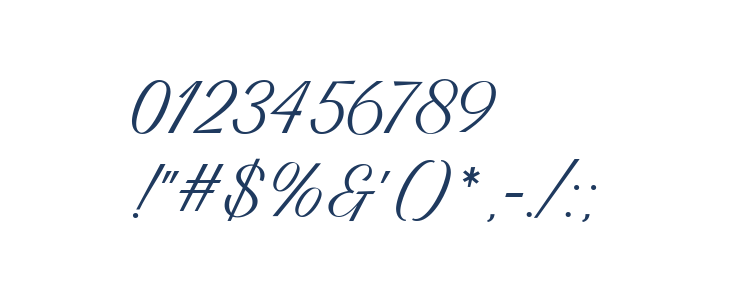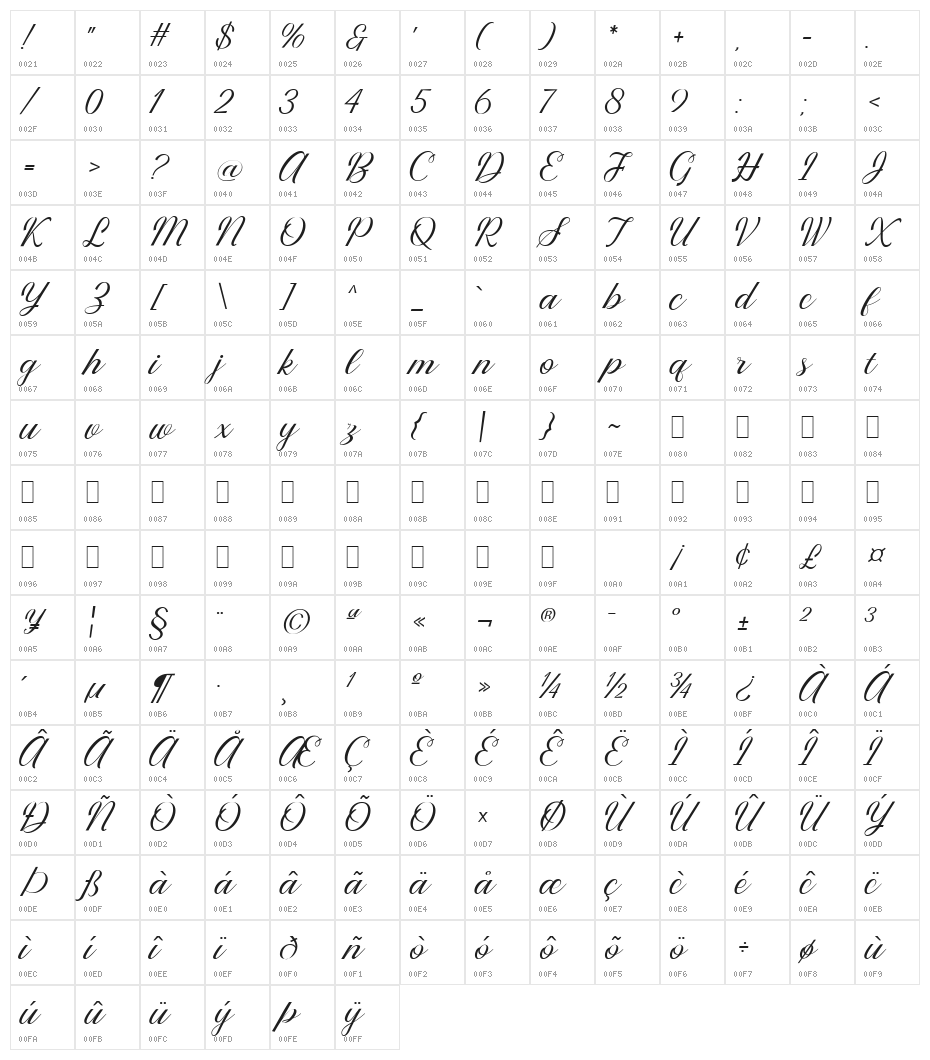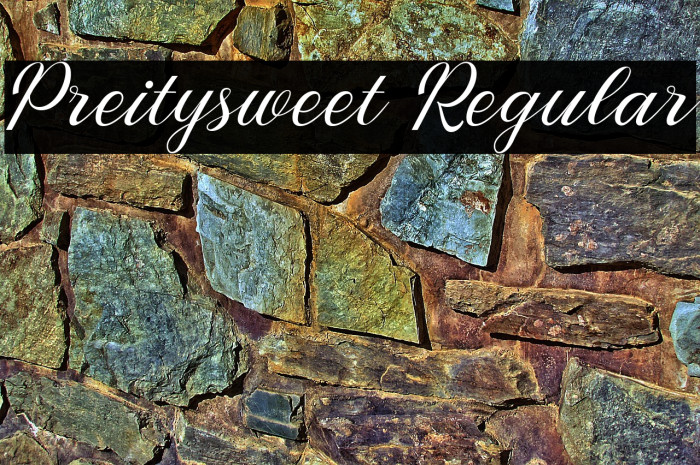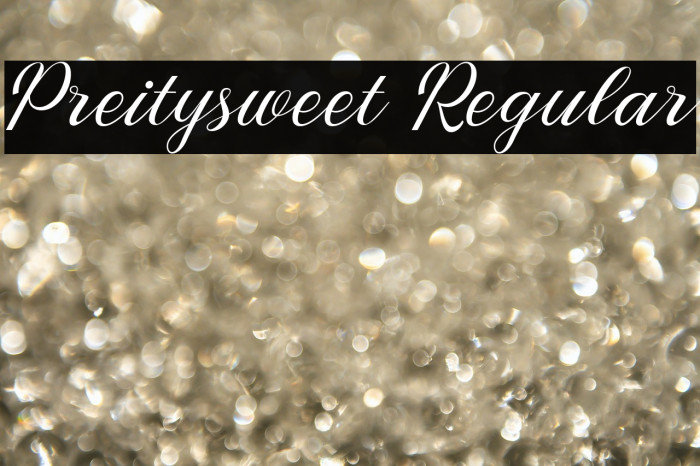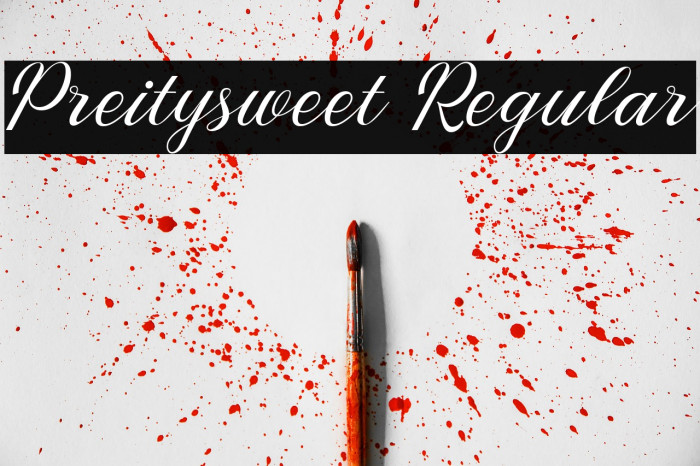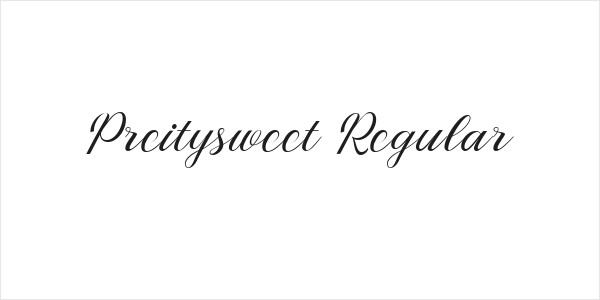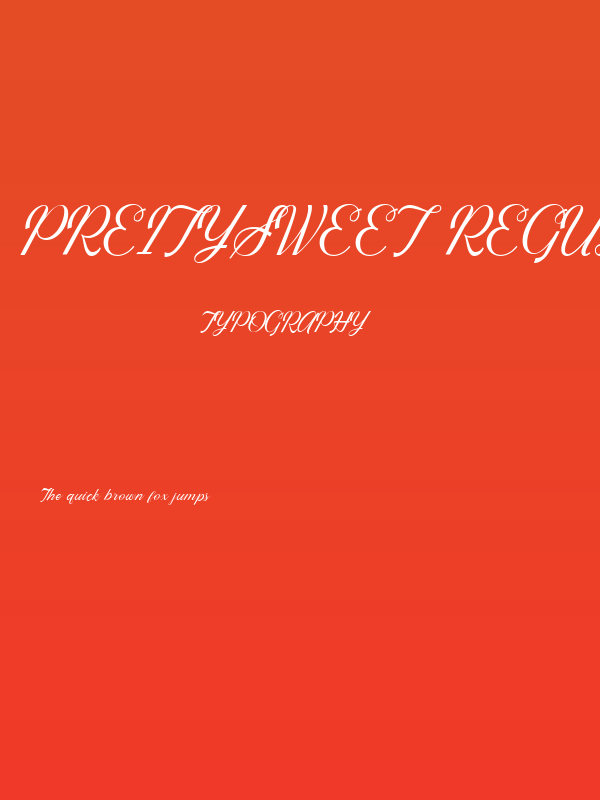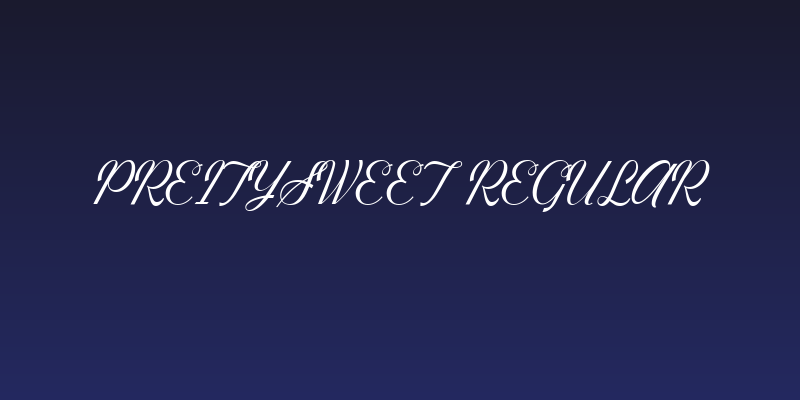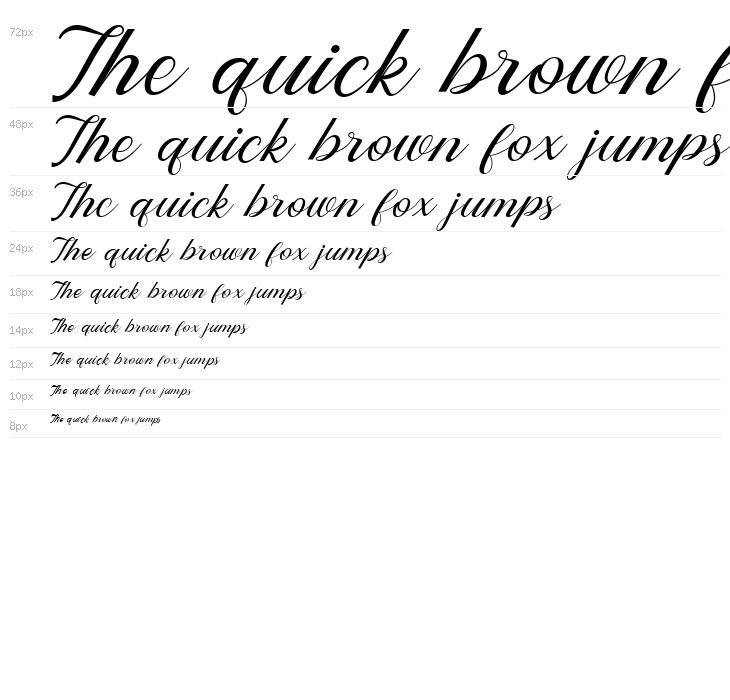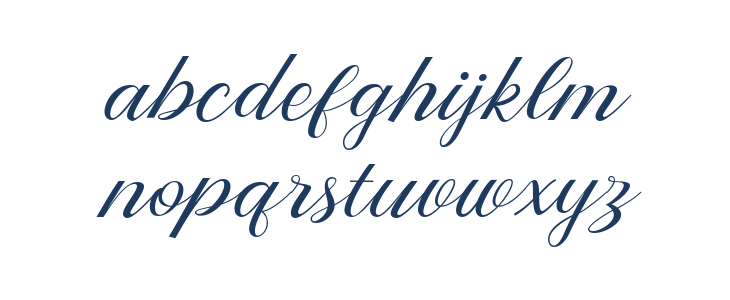
Preitysweet Regular Font
Preitysweet Regular Description
This elegant script font features flowing, cursive letterforms with a classic and sophisticated appeal. The uppercase letters are ornate, with sweeping curves and flourishes that give a sense of movement and grace. The lowercase letters maintain a consistent style, with smooth connections between characters, enhancing readability while retaining a decorative flair. The numerals are styled to match the letters, with a slight slant and elegant curves. Special characters are included, maintaining the font's overall aesthetic. This font exudes a sense of luxury and refinement, making it ideal for formal invitations, branding, and high-end product packaging.
| Proposed Projects | Ideal for wedding invitations, luxury branding, elegant product packaging, and formal event materials. |